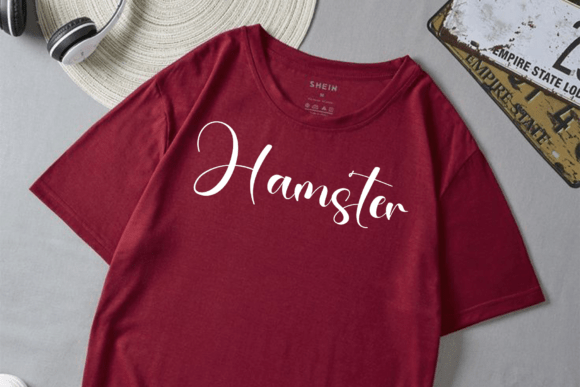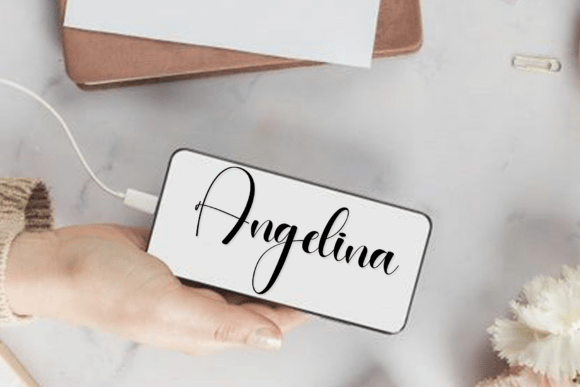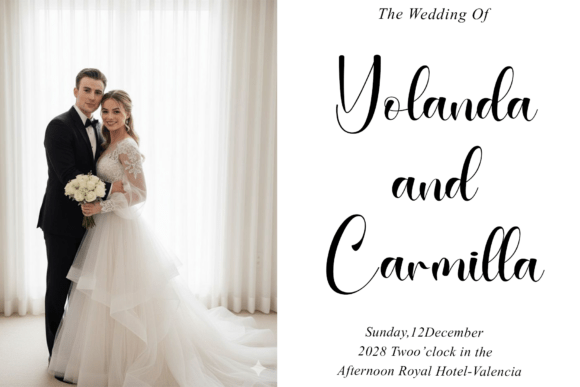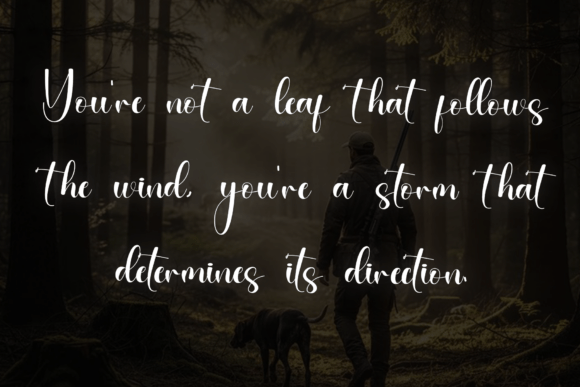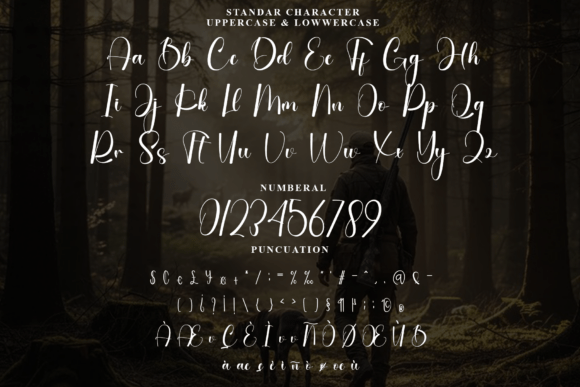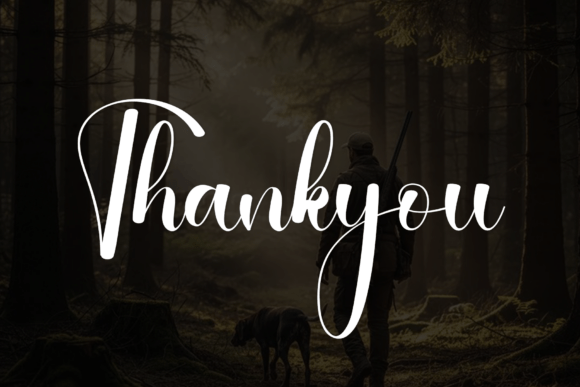
Unleashing the Magic of Handwritten Fonts
Have you ever stared at a blank page, trying to come up with the perfect design concept, only to have a spark of inspiration strike when you see a beautiful handwritten font? That’s exactly what happened to many designers when they discovered the Huntingnight Font. This stunning modern handwritten script font is a game-changer for creatives, offering a unique blend of elegance and sophistication that’s sure to elevate any project.
The Huntingnight Font is perfect for designers looking to add a touch of luxury and authenticity to their work. Its smooth curves and elongated strokes give it a signature look that’s perfect for personal branding, photography watermarks, and editorial design. With the Huntingnight Font, designers can create beautiful, high-end designs that truly stand out from the crowd.
Huntingnight Font Key Features
- Unique Characteristics: Huntingnight Font features a unique blend of modern and rustic elements, with intricate details and subtle texture, making it suitable for a wide range of design applications.
Huntingnight Font Review
Overall, I think Huntingnight Font is a great addition to any designer’s toolkit. ✨ It has a unique and edgy feel that’s perfect for projects that need a bold statement.
- Unique Style: The font’s mix of futuristic and organic elements creates a visually interesting and dynamic look that’s sure to grab attention.
- Good Legibility: Despite its bold appearance, the font is still easy to read, even at smaller sizes.
However, like any font, it’s not without its limitations. ⚠️
- Limited Versatility: While the font is perfect for certain projects, it may not be the best choice for more conservative or traditional designs.
- May Not Be Accessible: Some users may experience difficulties reading the font due to its unique style, which may not be suitable for everyone.
Overall, I’d give Huntingnight Font 4 out of 5 stars. It’s a great addition to any designer’s toolkit, but it’s essential to use it thoughtfully and consider the audience and project requirements.
Tips for Getting the Most Out of Huntingnight Font
Use bold and italic styles to add emphasis to your text.
Experiment with different font sizes to create visual hierarchy.
Combine Huntingnight Font with other fonts to create a unique look.
Use it for headings, titles, and captions to add a touch of elegance.
Huntingnight Font is ideal for:
Creating elegant and sophisticated designs.
Adding a touch of luxury to your branding materials.
Using as a heading font in brochures, flyers, and business cards.
Creating a unique and eye-catching title for your blog or article.
Alternatives to Huntingnight Font
Huntingnight Font is a unique and elegant font, but it may not be suitable for all design projects. Here are some alternatives that designers can consider:
Pacifico is a beautiful, handwritten font that exudes a sense of elegance and sophistication. It is perfect for use in wedding invitations, greeting cards, and other creative projects where a touch of romance is needed.
Comparison to Huntingnight Font: While both fonts have a similar elegant feel, Pacifico is more casual and cursive, whereas Huntingnight Font is more formal and refined.
Great Vibes is a modern, handwritten font that is perfect for use in creative projects such as posters, social media graphics, and advertising materials. It has a fun and playful feel that is sure to grab attention.